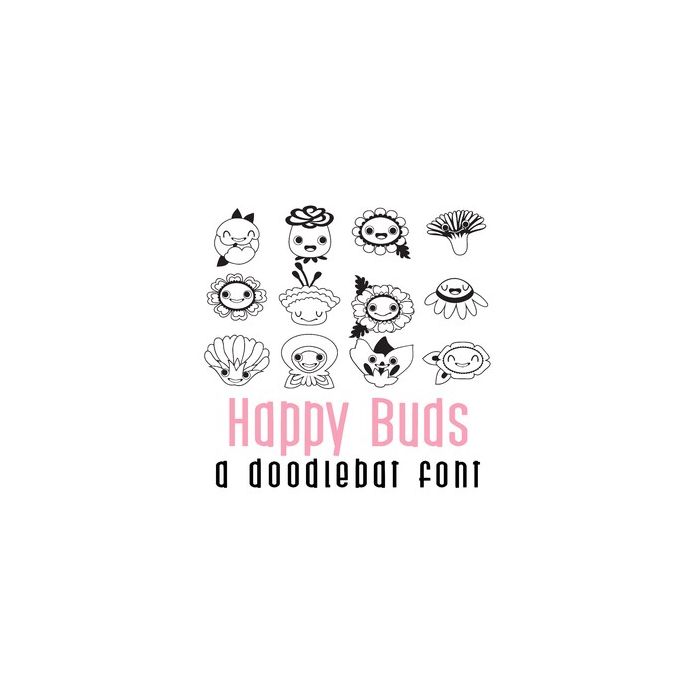
This adorable doodlebat font features 26 happy blooms. Perfect for Spring, cards, crafts, gifts, decor, planner stickers, classrooms, scrapbook pages and more!